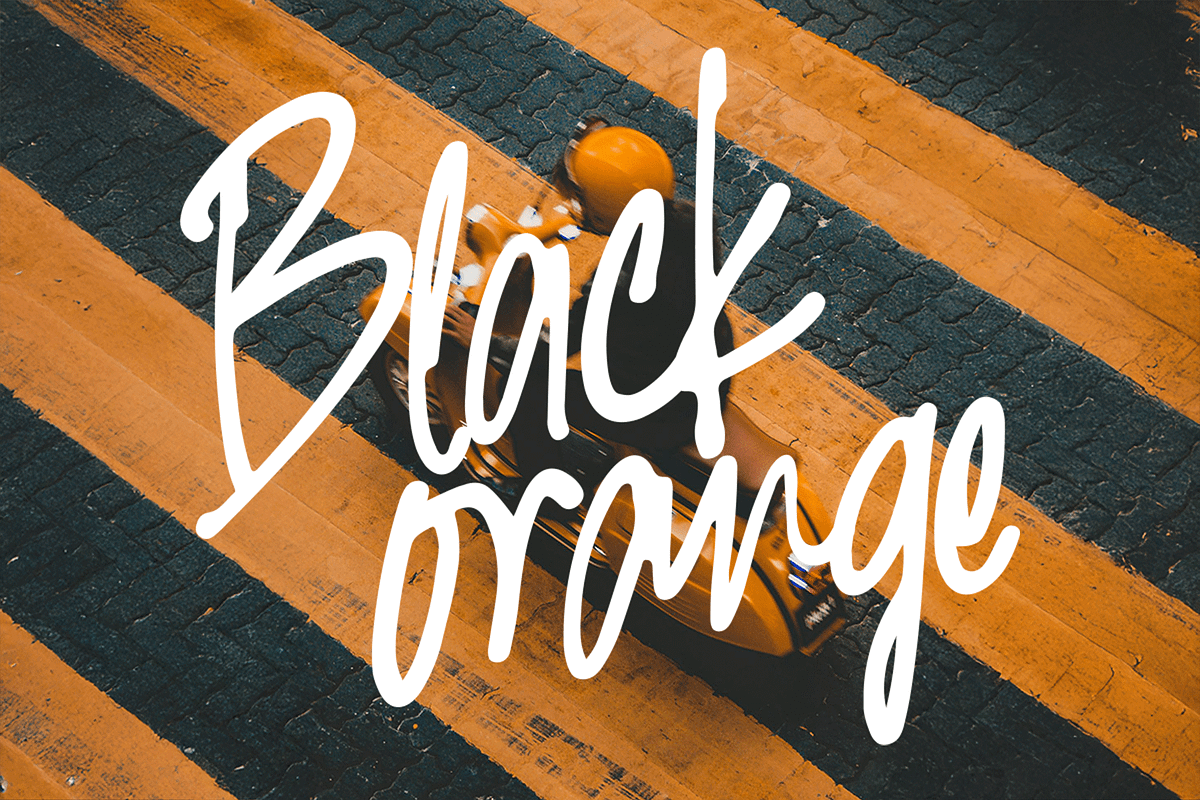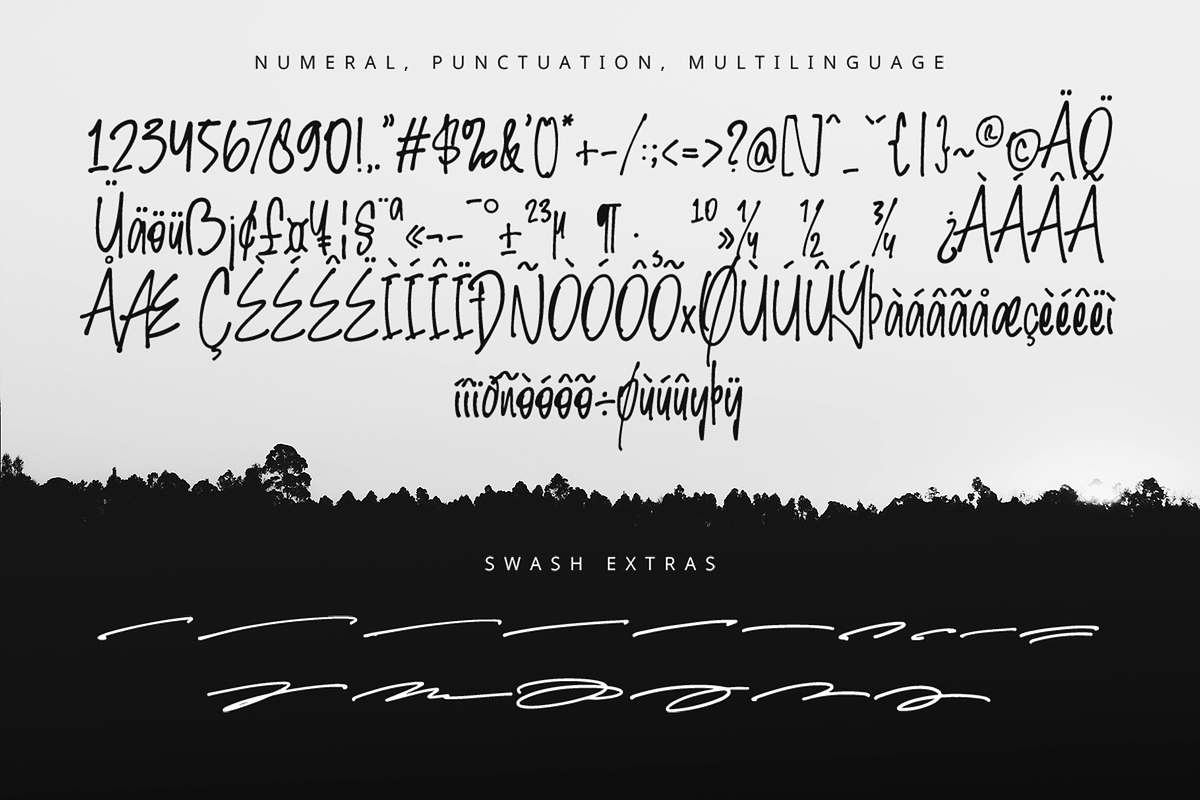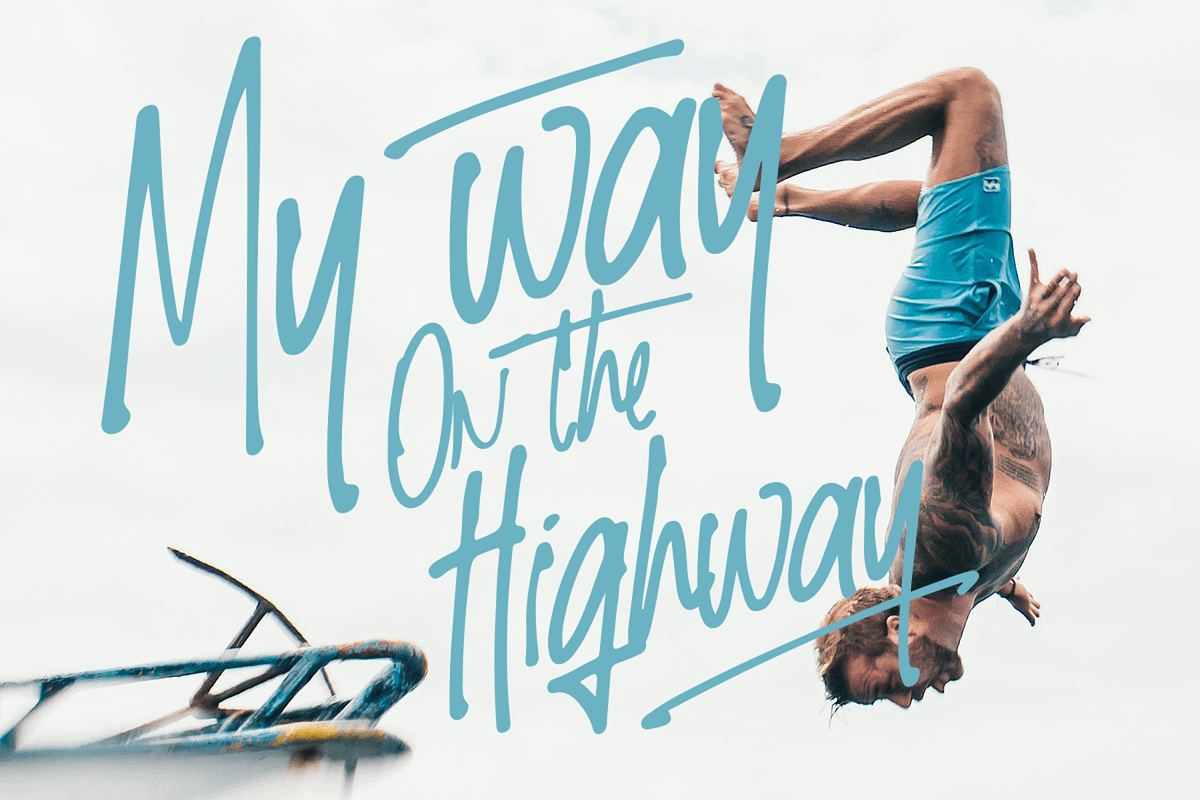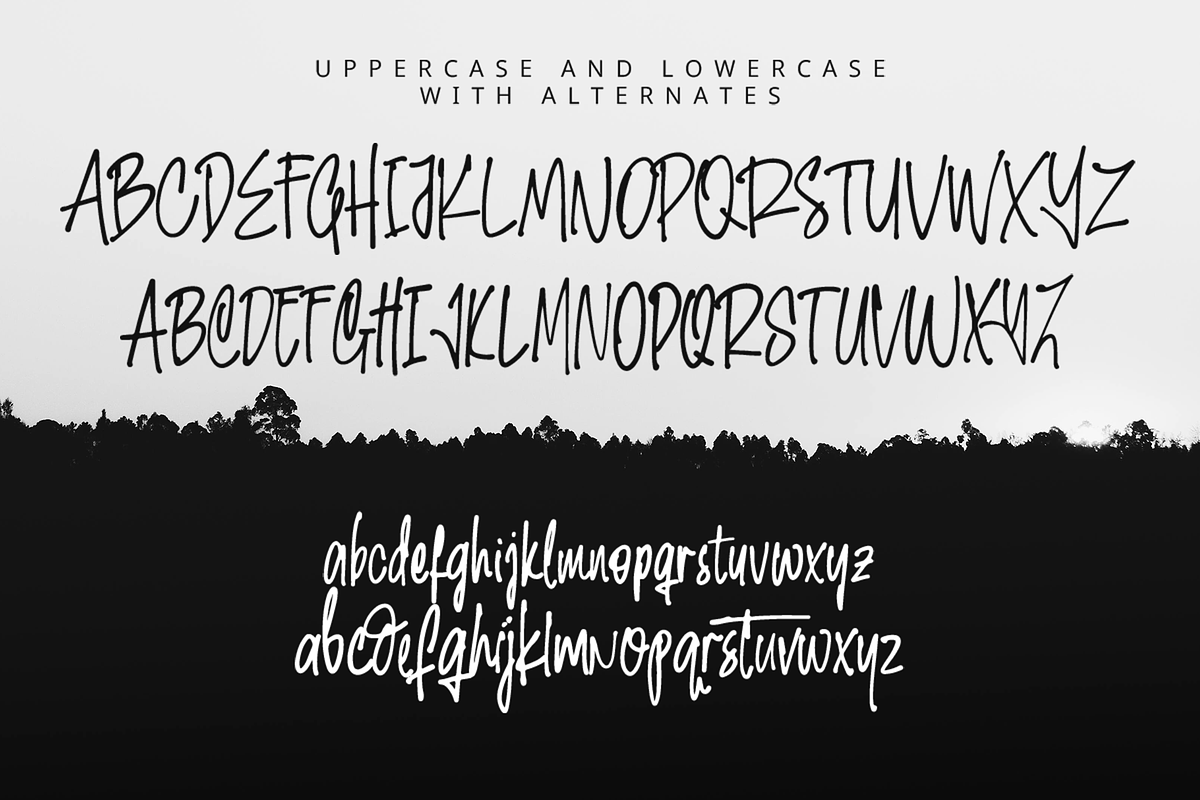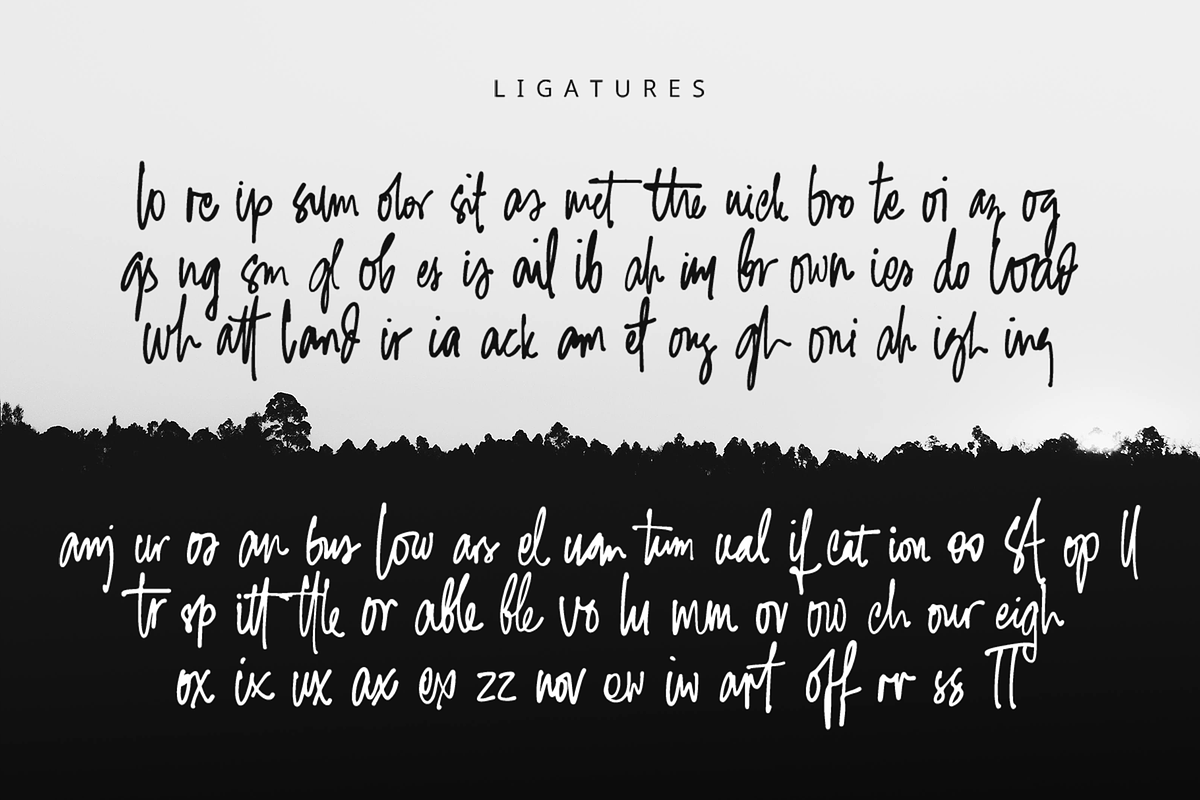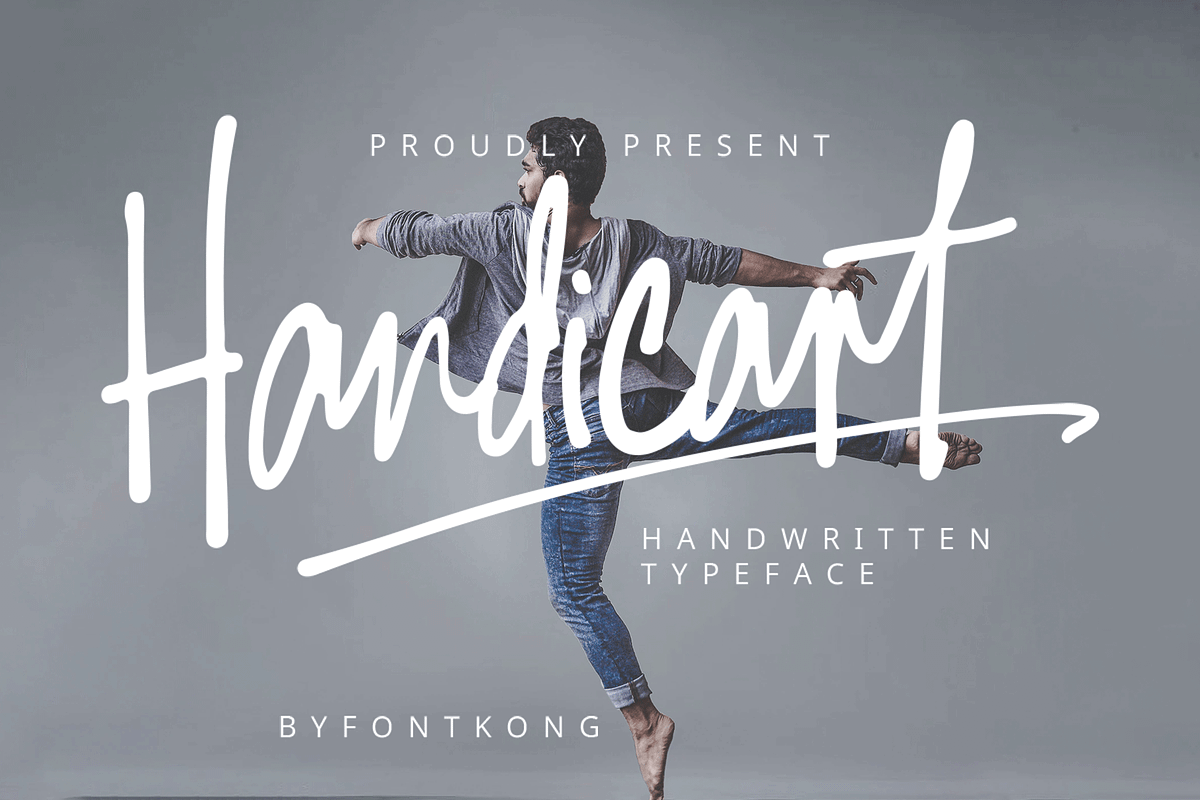
Handicart – A Charming Handwritten
Handicart – A Charming Handwritten Typeface
Meet Handicart, a beautifully handcrafted handwritten typeface that brings warmth and personality to your designs. Inspired by natural handwriting, Handicart features smooth curves, organic strokes, and a casual yet elegant flow, making it perfect for a variety of creative projects.
Whether you're designing logos, wedding invitations, branding materials, social media graphics, or packaging, Handicart adds a personal and expressive touch. Its fluid characters and well-balanced structure ensure readability while maintaining a stylish handwritten aesthetic.
This font includes uppercase and lowercase letters, numerals, punctuation, and multilingual support, giving you the flexibility to use it in multiple design scenarios.